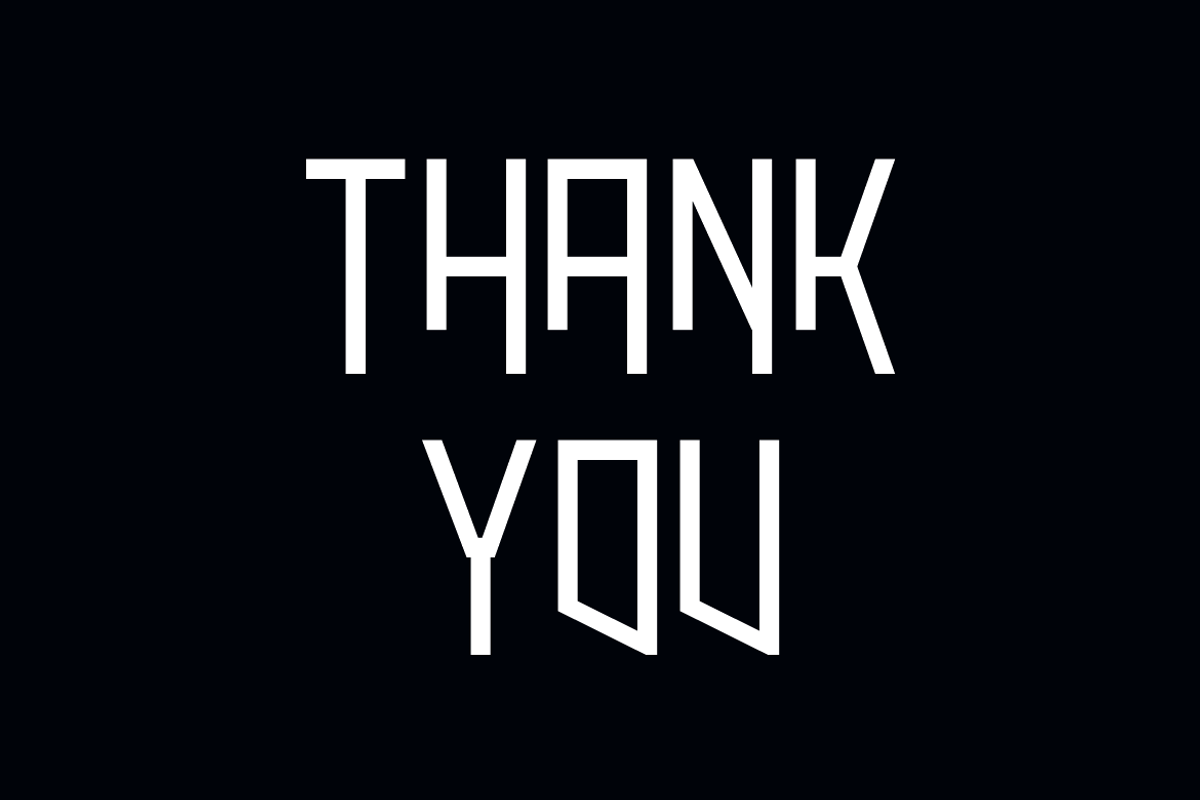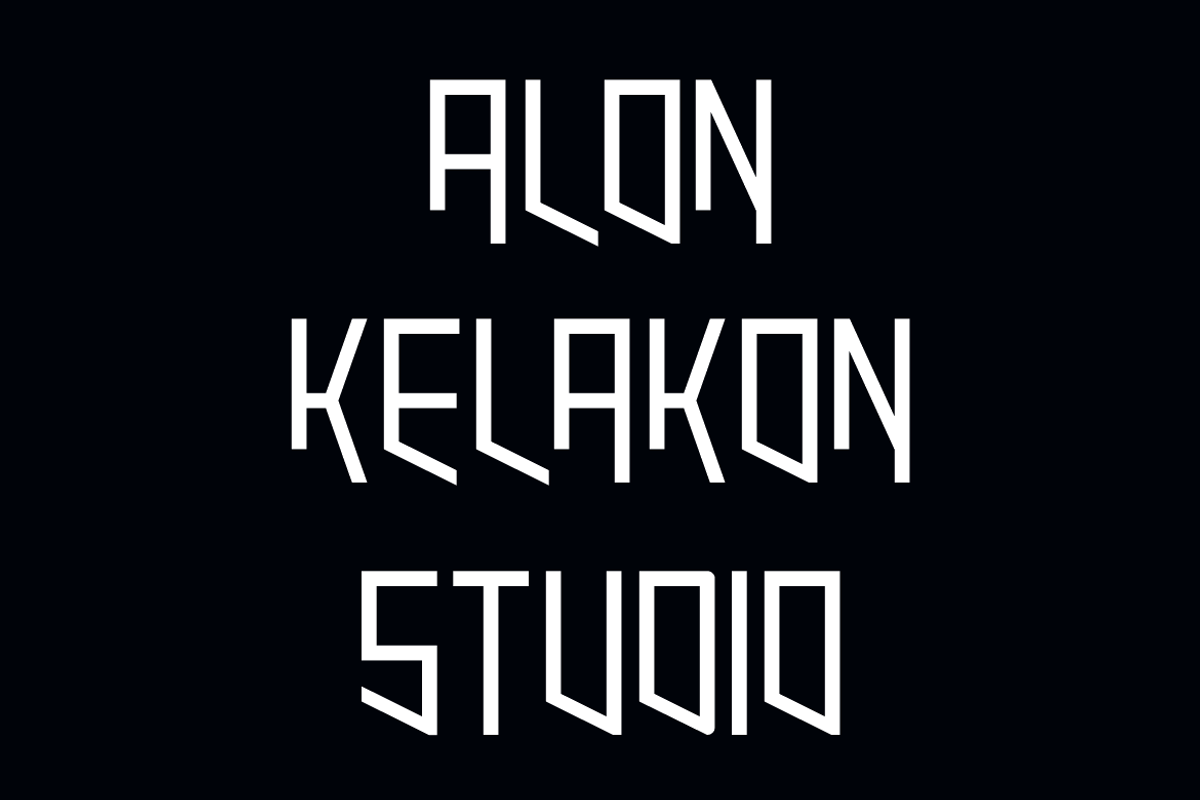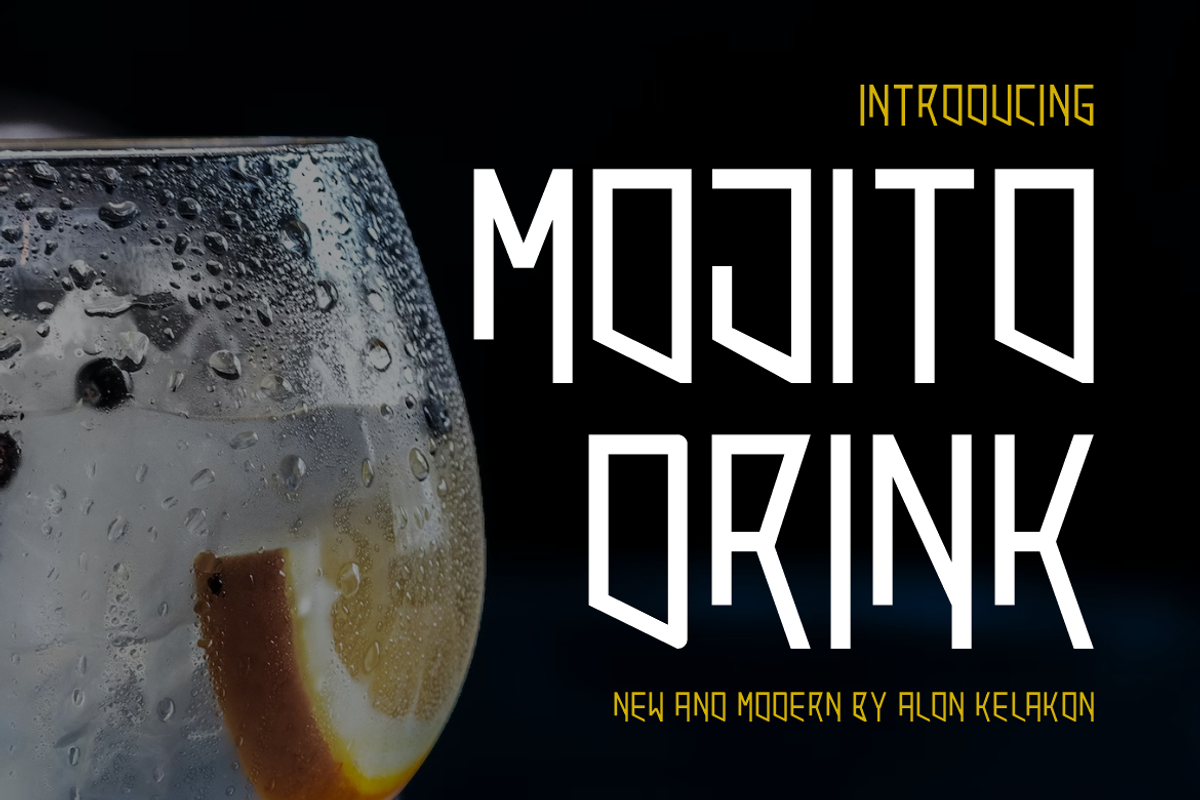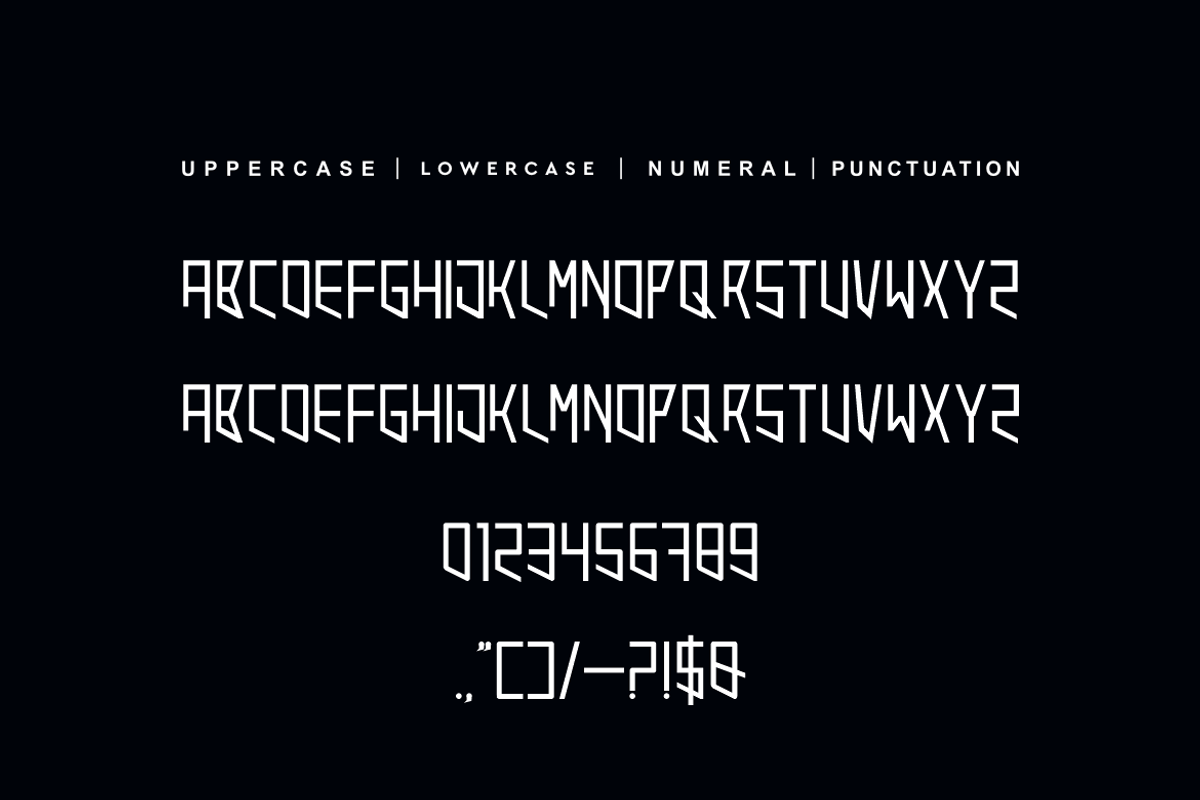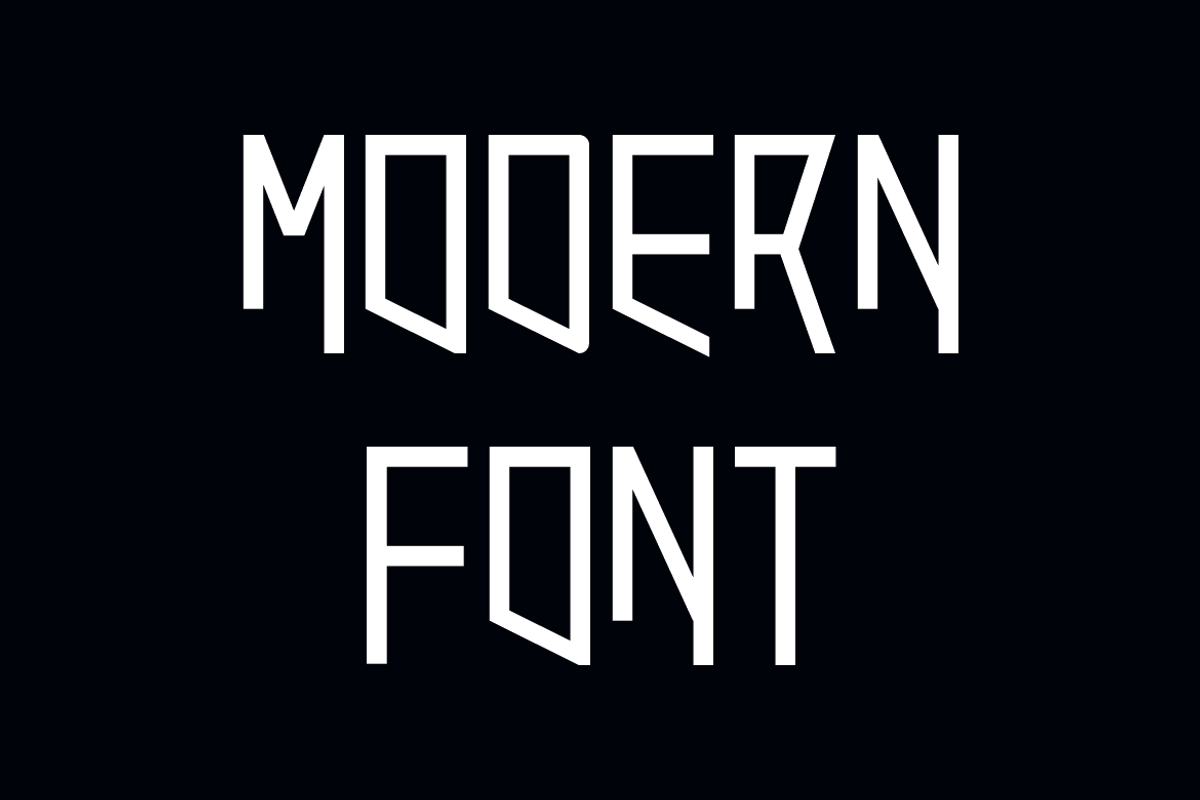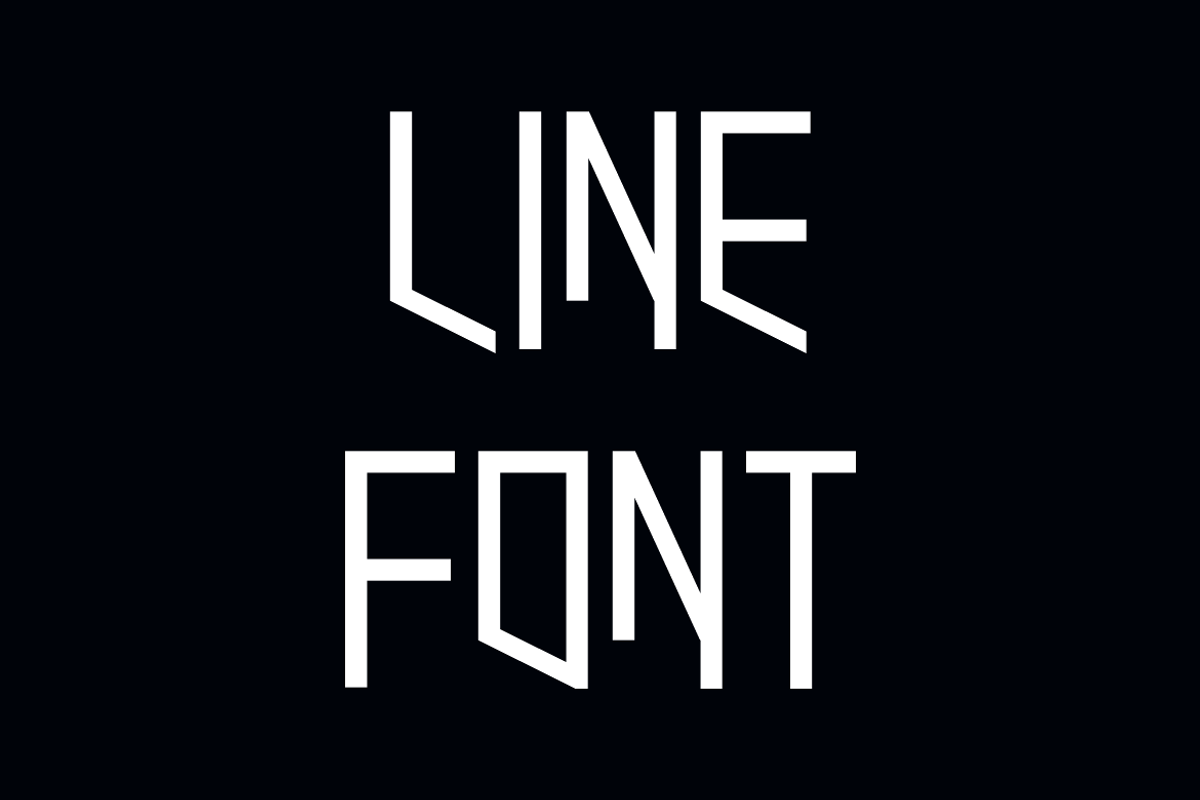
Mojito Drink
Mojito Drink Font is unique . Ready to use for your design like labeling, movie sceen, poster, movie title, gigs, album covers, logos, and much more.